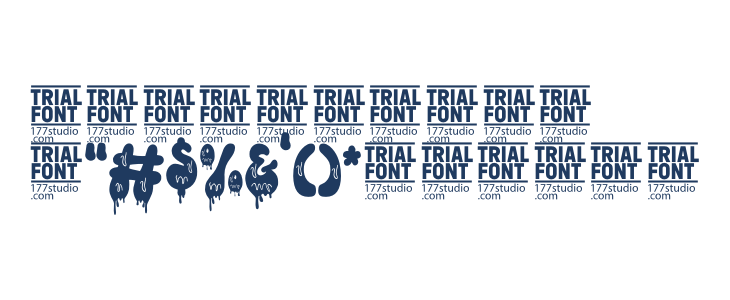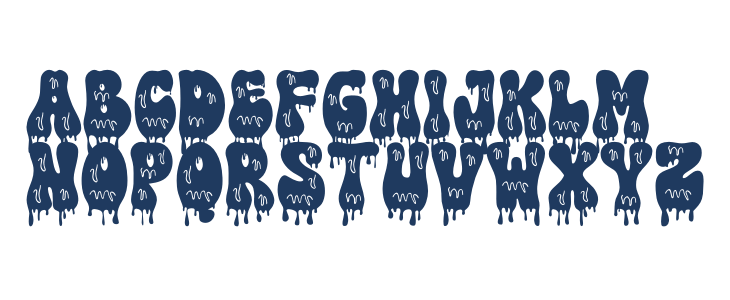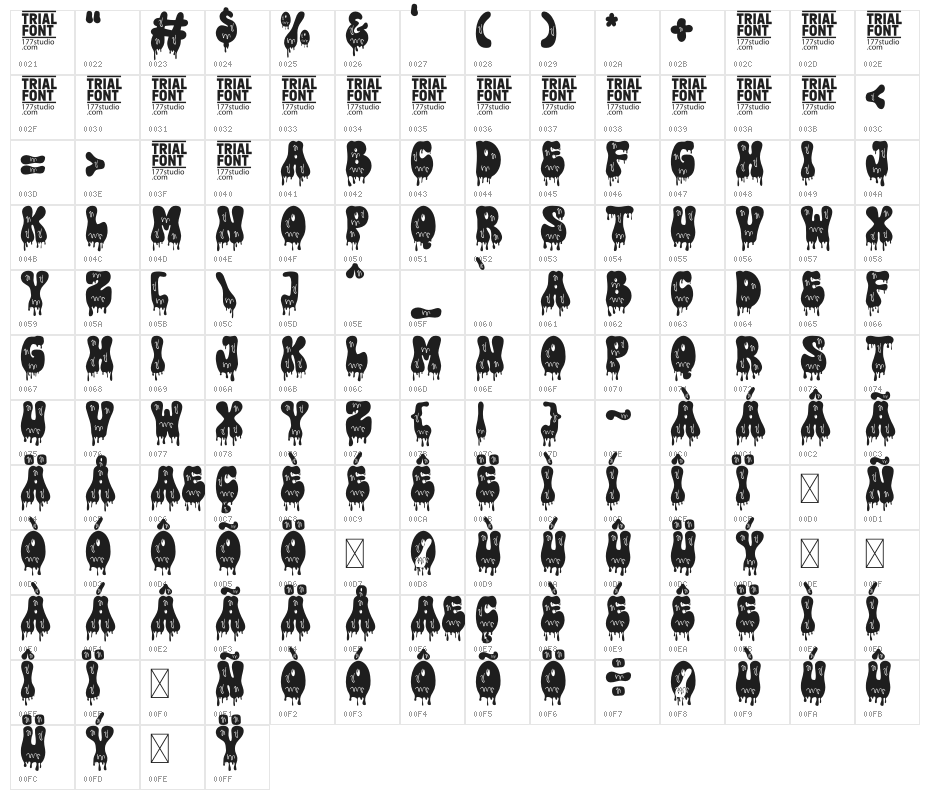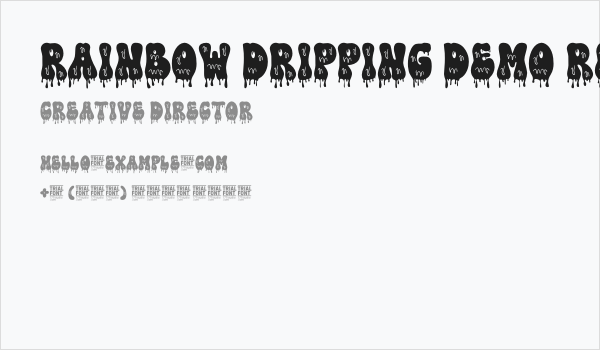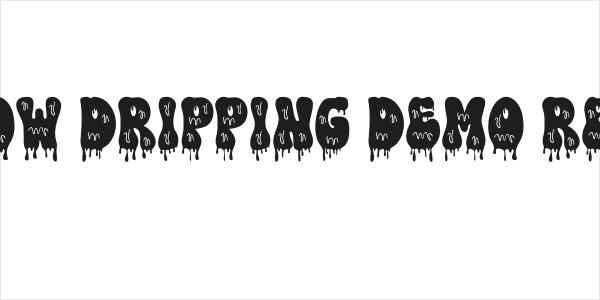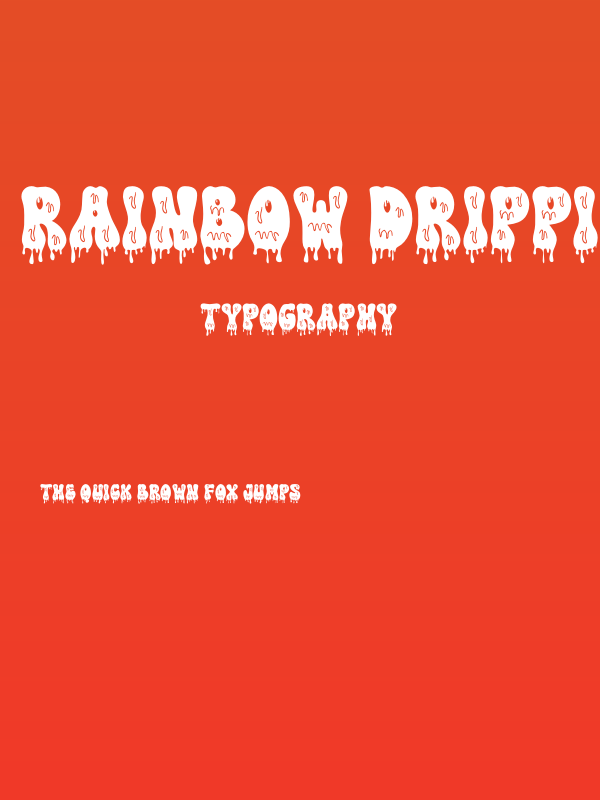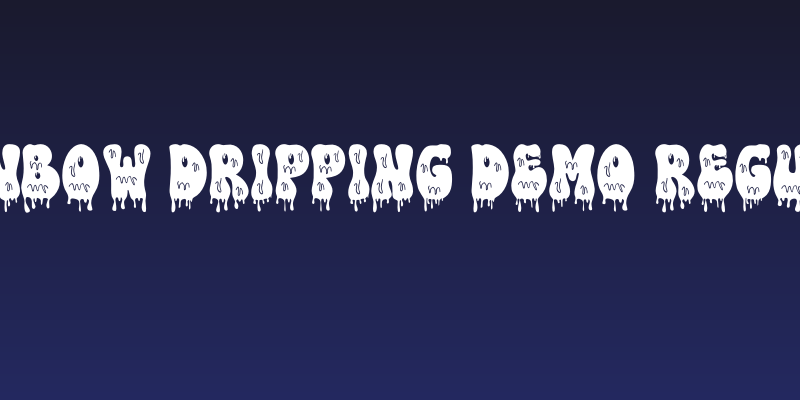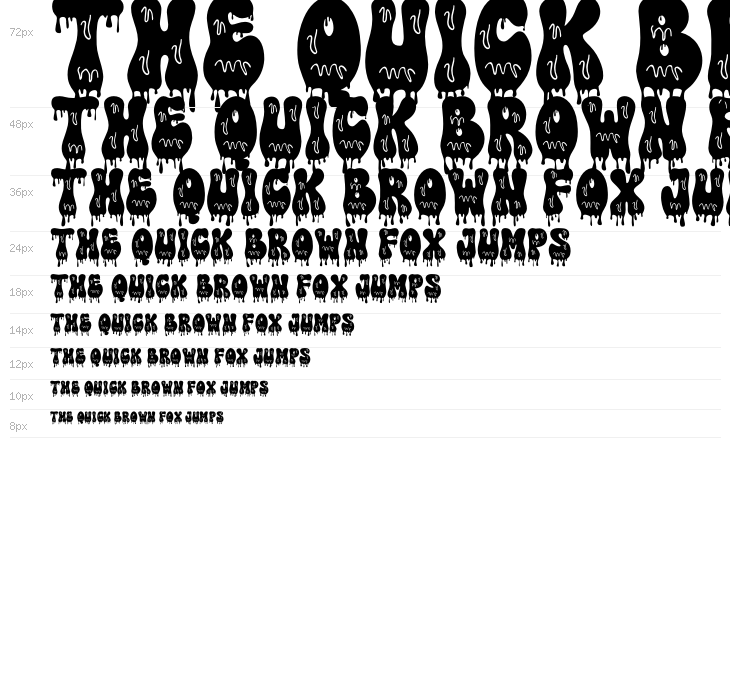
Rainbow Dripping Demo Regular Font
Rainbow Dripping Demo Regular Description
A bold, decorative display font with a dripping, liquid effect on each character, creating a playful and slightly eerie appearance. The letters are rounded and thick, with exaggerated drips extending downward, giving a melting or gooey impression.
Overall StyleDecorative, Playful, Spooky
Use CaseHeadlines, Posters, Logos, Themed Graphics
Proposed ProjectsHalloween posters, horror-themed event flyers, children's party invitations, slime or goo branding, novelty merchandise.